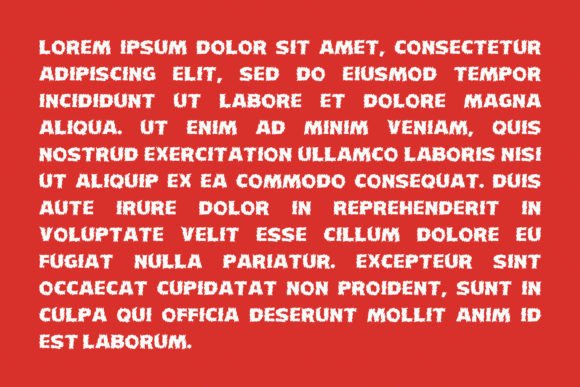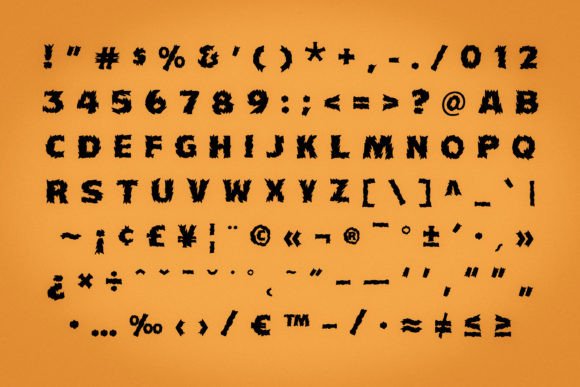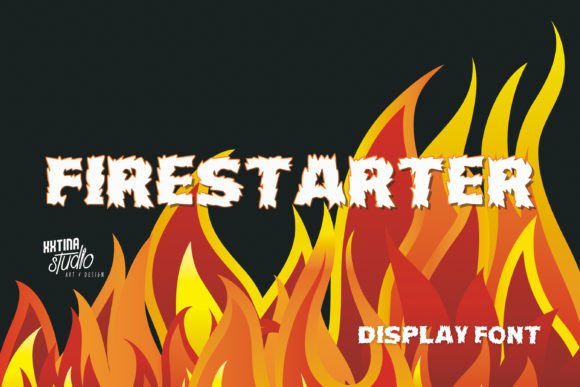
Firestarter Font: Unleash the Power of Bold and Fierce Typography
In the world of typography, fonts play a crucial role in conveying the tone and personality of a design. For designers and crafters looking to make a statement, the Firestarter font is an excellent choice. This all-caps, decorative display font is bold, fierce, and suitable for a wide range of cool design ideas. In this article, we’ll dive into the features and benefits of the Firestarter font, exploring how it can elevate your designs and help you achieve your creative goals.
The Power of Firestarter Font
Firestarter font is a decorative display font that exudes confidence and energy. Its bold and fierce design makes it perfect for headlines, titles, and other attention-grabbing elements. The font’s all-caps design ensures that your text stands out, making it ideal for designs where you want to make a statement. Whether you’re working on a logo, poster, or social media graphic, Firestarter font is sure to turn heads.
Key Features of Firestarter Font
• All-caps design: Firestarter font is an all-caps font, ensuring that your text is always bold and attention-grabbing.
• Decorative display font: The font’s decorative design makes it perfect for display purposes, such as headlines and titles.
• Bold and fierce: Firestarter font is designed to make a statement, with a bold and fierce design that’s sure to grab attention.
• Highly versatile: The font is suitable for a wide range of design ideas, from logos and posters to social media graphics and more.
Benefits of Using Firestarter Font
So, why choose Firestarter font for your design projects? Here are just a few benefits of using this powerful font:
• Adds impact and drama: Firestarter font is designed to make a statement, adding impact and drama to your designs.
• Enhances readability: The font’s bold design ensures that your text is easy to read, even at smaller sizes.
• Increases versatility: Firestarter font can be used for a wide range of design ideas, making it a valuable addition to your font library.
• Helps to establish brand identity: The font’s unique design can help to establish your brand’s identity and differentiate you from others.
Design Ideas Using Firestarter Font
So, what can you create with Firestarter font? Here are just a few design ideas to get you started:
• Bold logos: Use Firestarter font to create a bold and attention-grabbing logo that makes a statement.
• Eye-catching posters: The font’s bold design makes it perfect for creating eye-catching posters that grab attention.
• Social media graphics: Firestarter font is ideal for social media graphics, such as Facebook posts, Instagram stories, and more.
• Headlines and titles: Use the font to create bold and attention-grabbing headlines and titles for your blog posts, articles, and more.
Tips for Using Firestarter Font
To get the most out of Firestarter font, here are a few tips to keep in mind:
• Use it sparingly: While Firestarter font is bold and attention-grabbing, it’s best to use it sparingly to avoid overwhelming your design.
• Pair it with other fonts: The font pairs well with other fonts, so experiment with different combinations to find the perfect look for your design.
• Experiment with colors: Firestarter font looks great in a variety of colors, so don’t be afraid to experiment and find the perfect hue for your design.
In conclusion, Firestarter font is a powerful and versatile font that’s perfect for designers and crafters looking to make a statement. Its bold and fierce design makes it ideal for a wide range of design ideas, from logos and posters to social media graphics and more. With its all-caps design, decorative display font, and highly versatile nature, Firestarter font is sure to become a valuable addition to your font library.